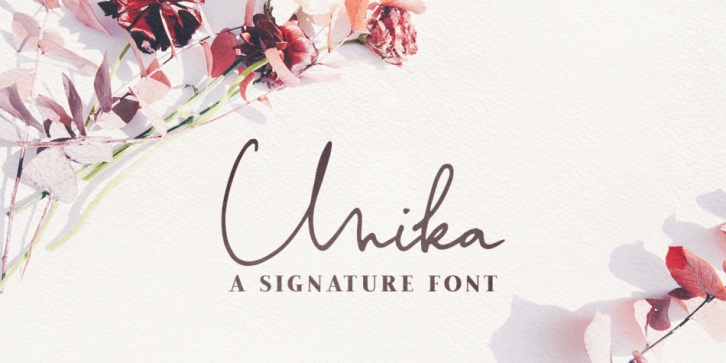
Designed by Ana Parracho, Unika is a script and dingbat font family. This typeface has three styles and was published by Ana's Fonts.
- 100+ ligatures that will give your texts a real handwritten look
- a set of 52 swashes to add visual interest to your texts
- a bonus slant version of the font, in case your designs need a more dramatic look
Perfect for beautiful and easy designs with a handwritten feel, such as postcards and notes, creating logotypes, social media posts, branding and packaging, etc.